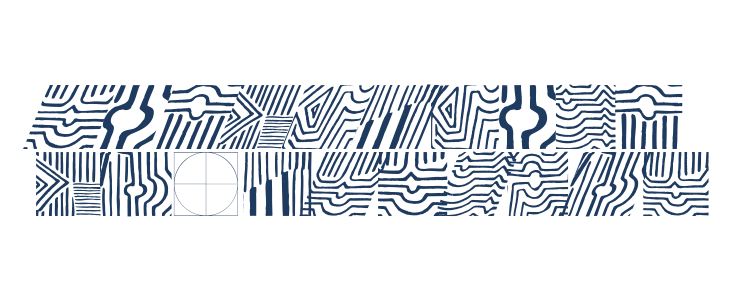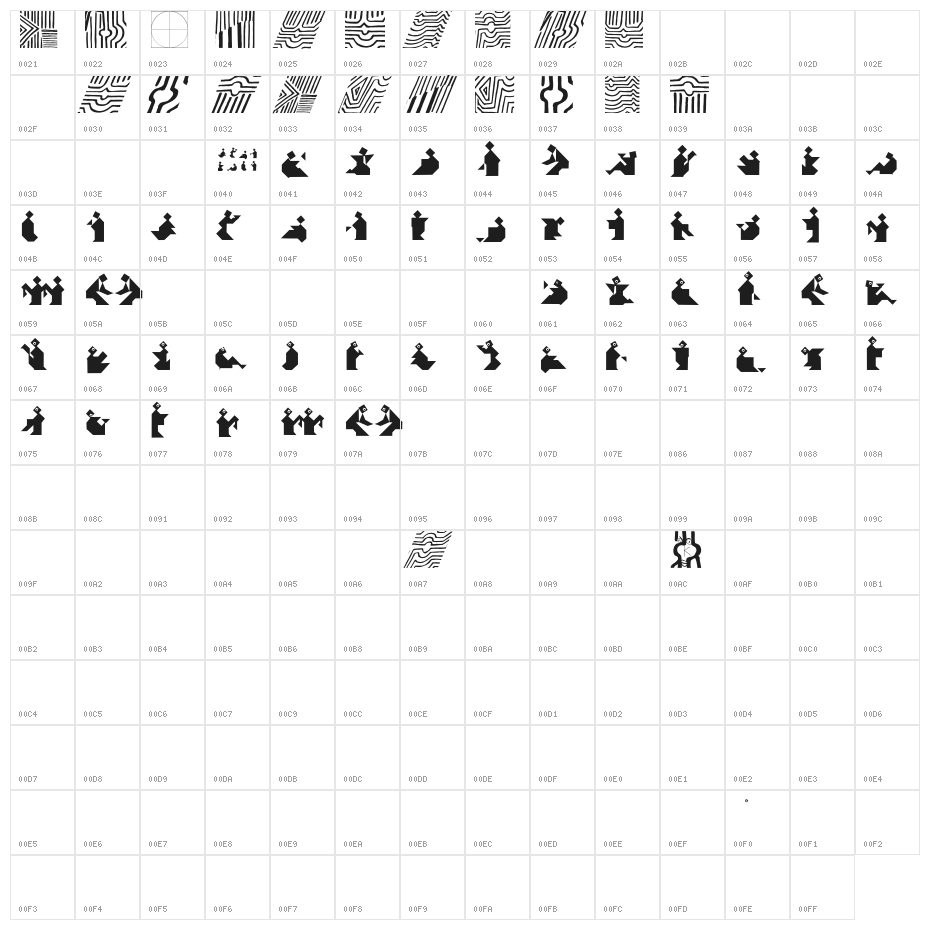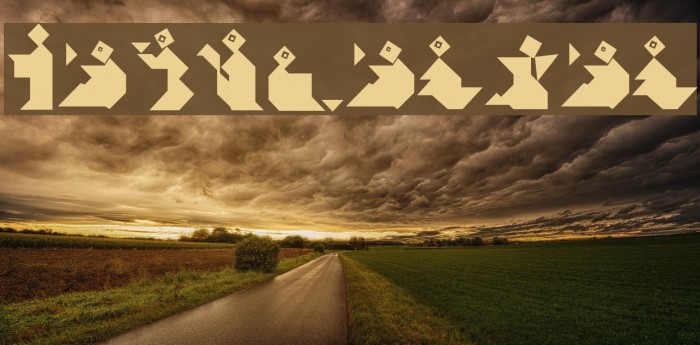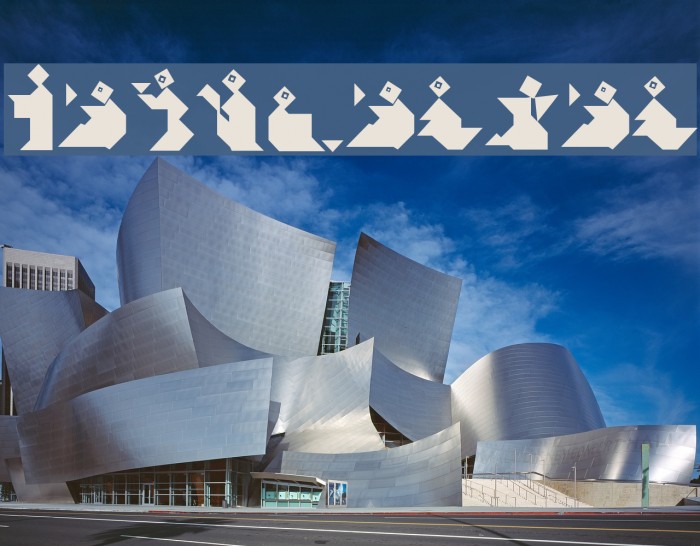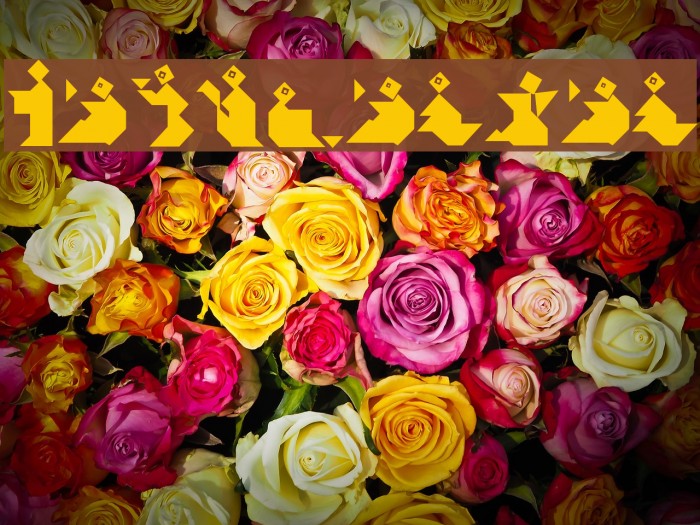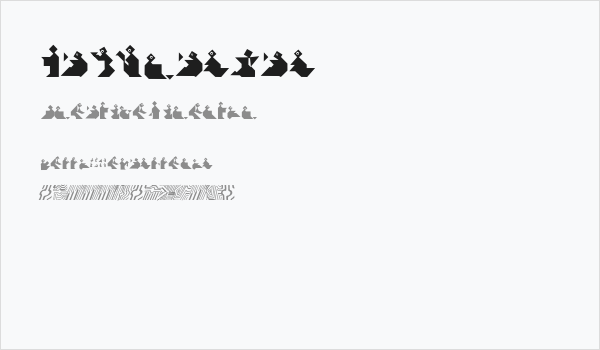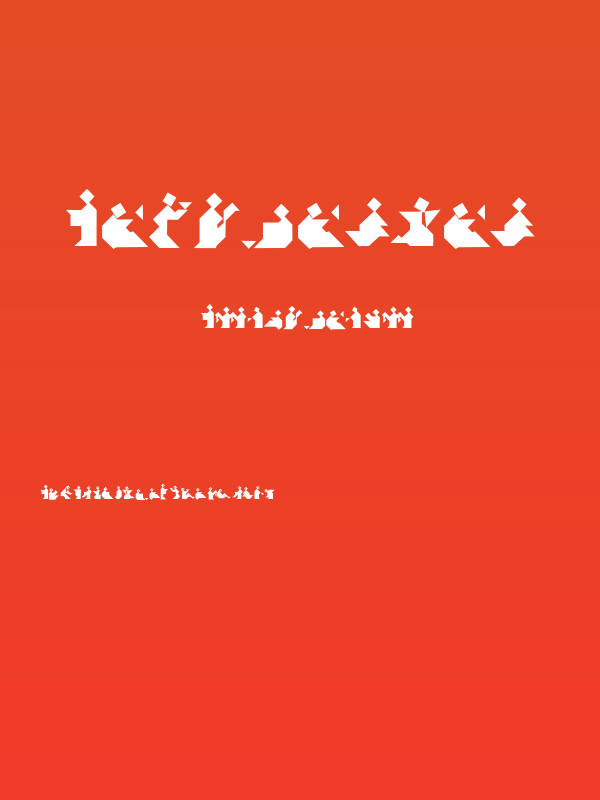
TangramBam Font
TangramBam Description
This font is a highly creative and abstract representation of characters, inspired by the geometric shapes of a tangram puzzle. Each letter is constructed using a combination of triangles, squares, and parallelograms, creating a unique and artistic appearance. The design is bold and striking, with a strong emphasis on geometric forms and symmetry. The characters are not immediately recognizable as traditional letters, making this font more suitable for artistic and decorative purposes rather than readability. The overall style is modern and avant-garde, appealing to those looking for a distinctive and unconventional typeface.
| Overall Style | Modern, Avant-garde |
| Use Case | Logos, Art installations, Creative branding |
| Proposed Projects | This font is perfect for artistic projects, abstract designs, modern art installations, and creative branding that seeks a unique and unconventional look. |